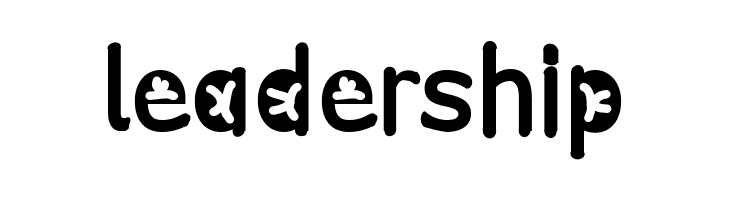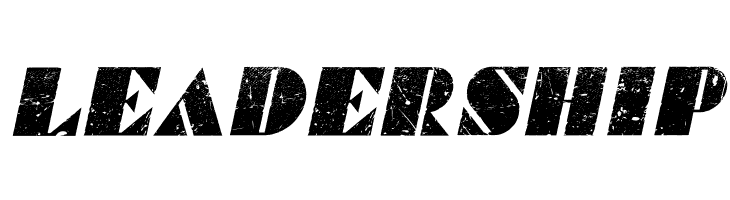
A bold, playful font with a comic book style and hand-drawn feel.
A bold, rounded, and playful font with a cartoonish style.
A bold, rounded, and playful font ideal for comic-style designs.
A playful, hand-drawn comic-style font with bold outlines and irregular shapes.
A playful, casual handwritten font with smooth, flowing lines.
A decorative font with bold characters enclosed in boxes, featuring a marquee light style.
A playful, bold font with whimsical cut-out shapes and rounded characters.
A bold, hand-drawn comic-style font with a playful and informal vibe.
A bold, geometric sans-serif font with a modern and clean aesthetic.
A bold, geometric font with high contrast and a striking, modern design.
A bold, italicized grunge font with a rugged, distressed texture.
A bold, distressed font with a grunge texture and rugged appearance.
A bold, italic font with sharp angles and a dynamic, modern style.
A bold, italicized outlined font with a modern and dynamic style.
A bold, outlined font with a modern, geometric style.
A bold, geometric font with high contrast and angular cuts.
Bold, italicized font with a shadow effect for a dynamic, three-dimensional look.
A bold, geometric font with a three-dimensional shadow effect for a striking visual impact.
A bold, playful handwritten font with thick strokes and a casual style.
A monospaced, pixelated font with a retro digital style.
A bold, pixelated font with a geometric, retro digital style.
A bold, three-dimensional font with a strong, impactful presence and geometric shapes.
A bold, playful font with rounded edges and a bubble-like appearance.
A modern sans-serif font with rounded edges and uniform stroke width.
A bold, rounded vintage-style font with a friendly and approachable appearance.
A modern, rounded sans-serif font with clean lines and excellent readability.
A bold, rounded font with smooth curves and uniform stroke width.